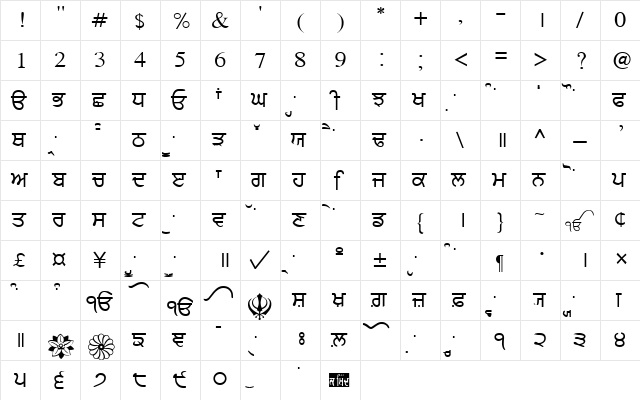
Chatrik Regular
Design Context for Chatrik Typeface
Chatrik takes a measured approach to typography — its balanced proportions and neutral character make it a reliable workhorse for both digital and print work.